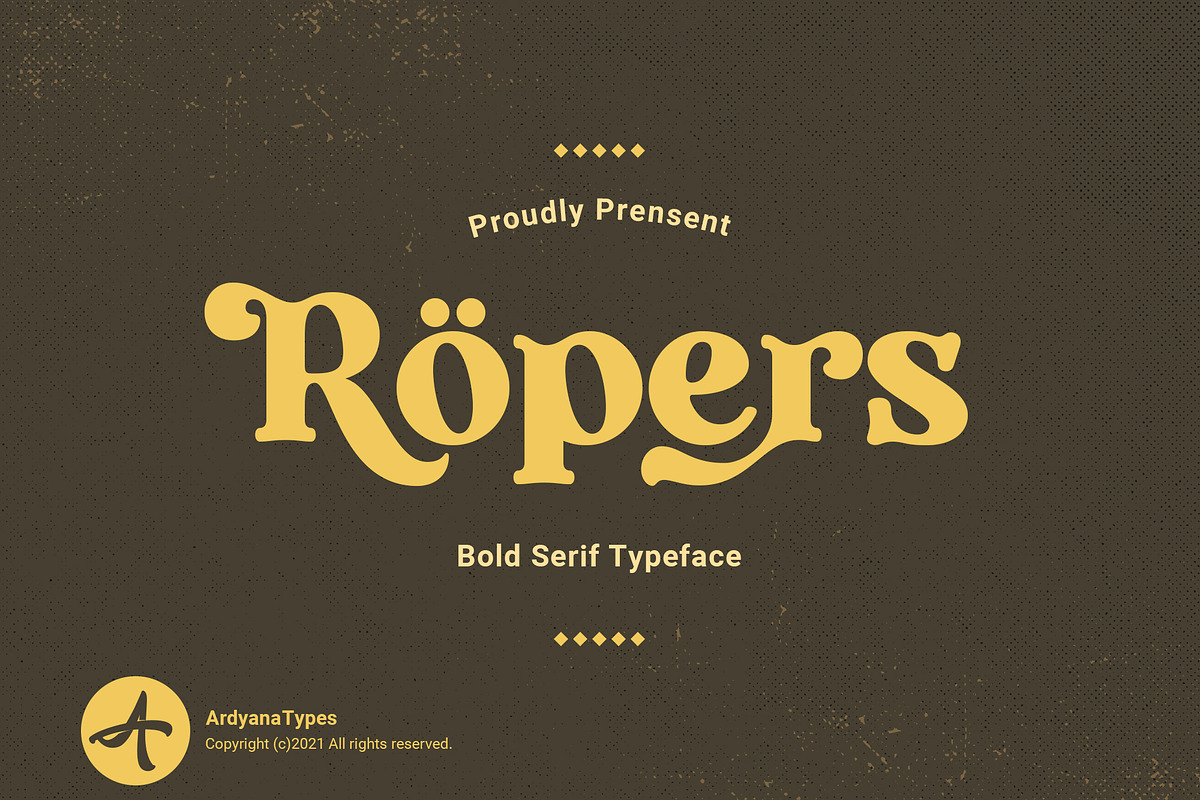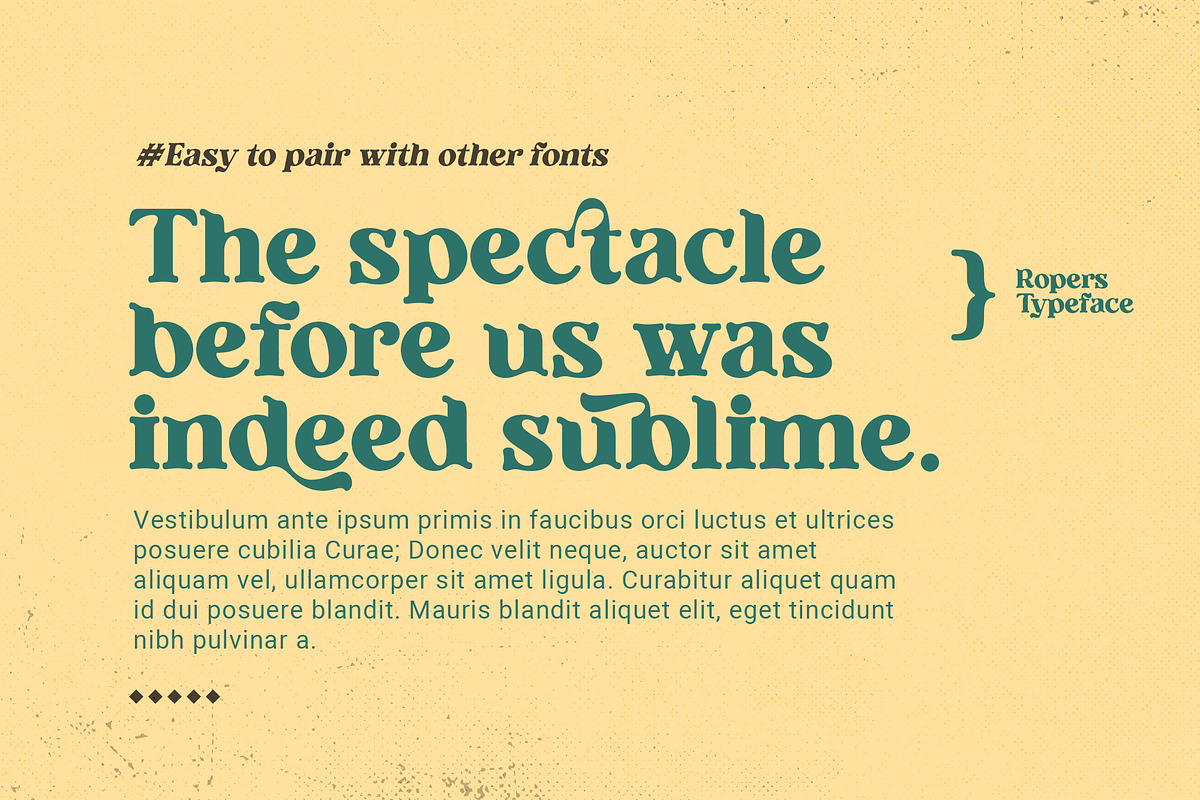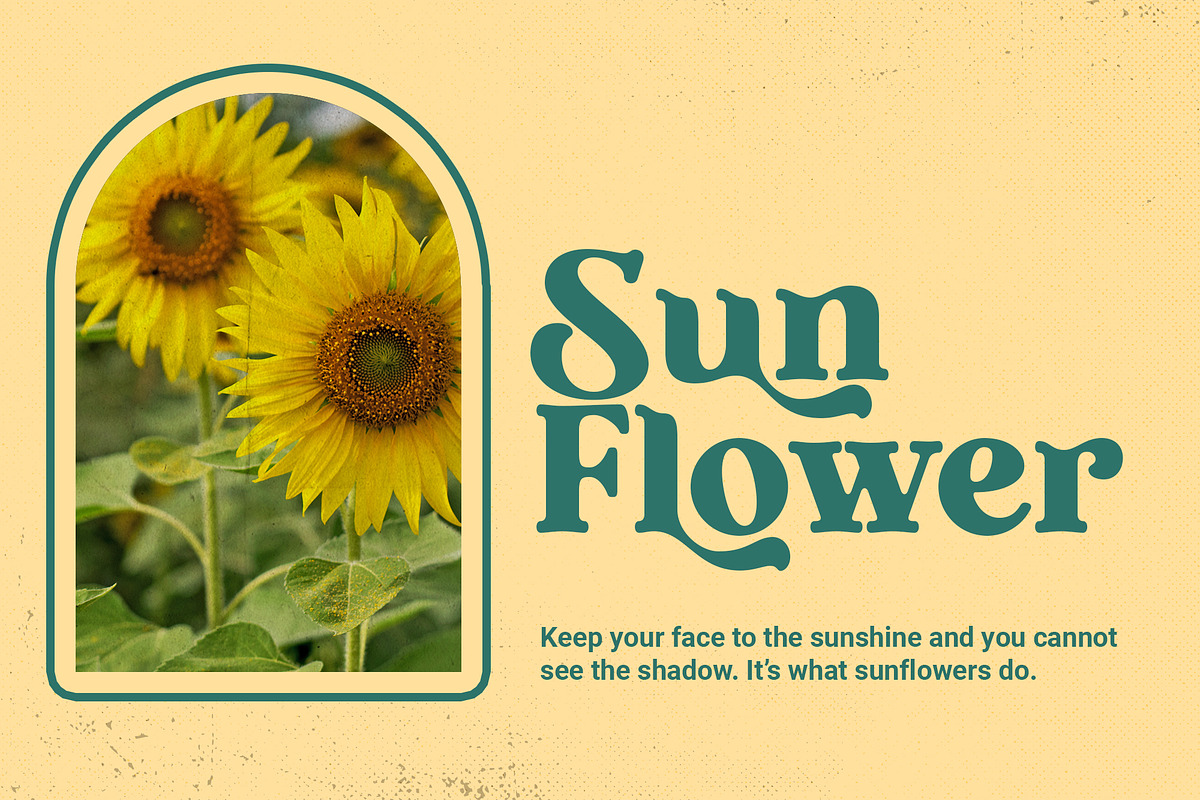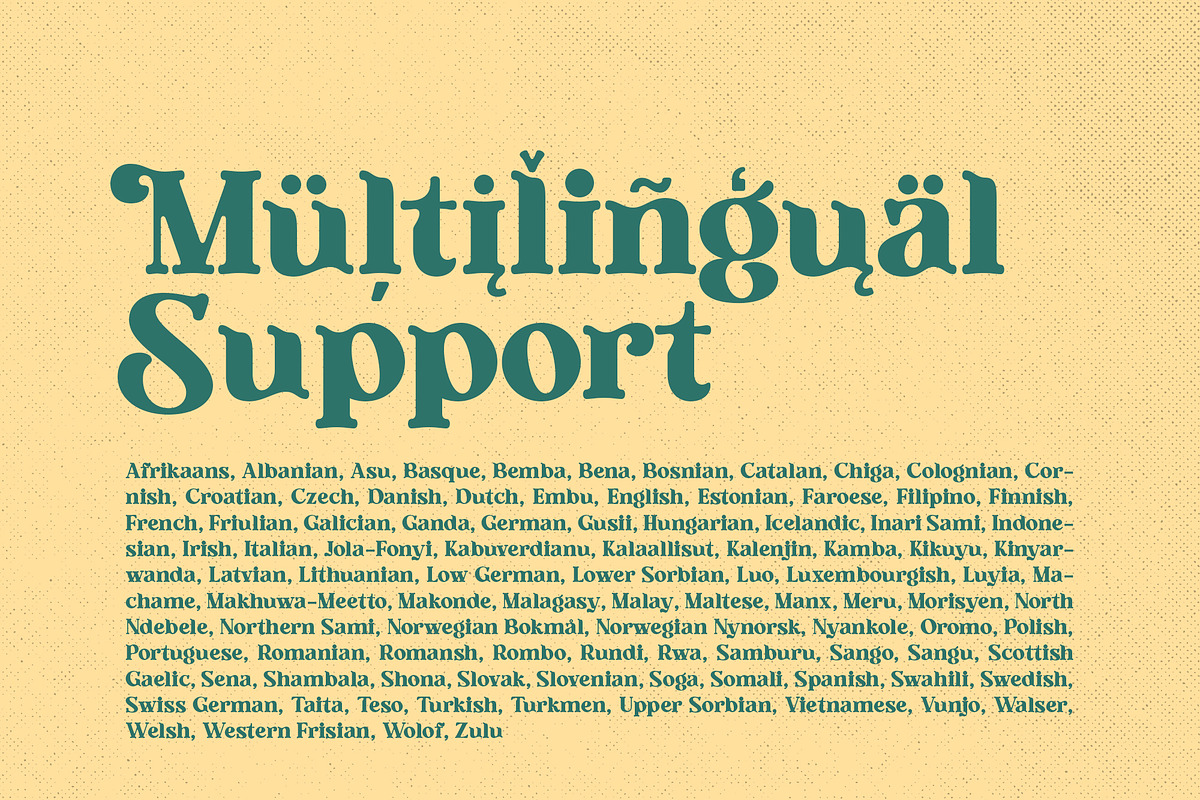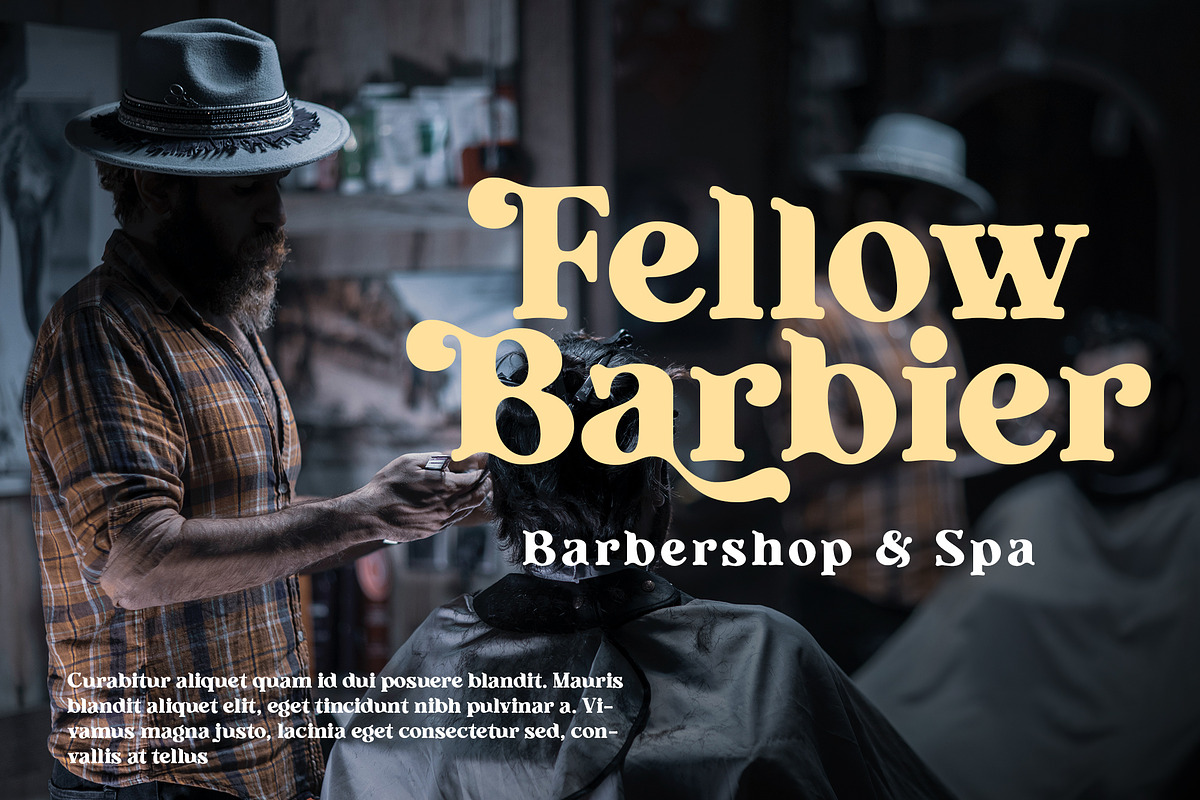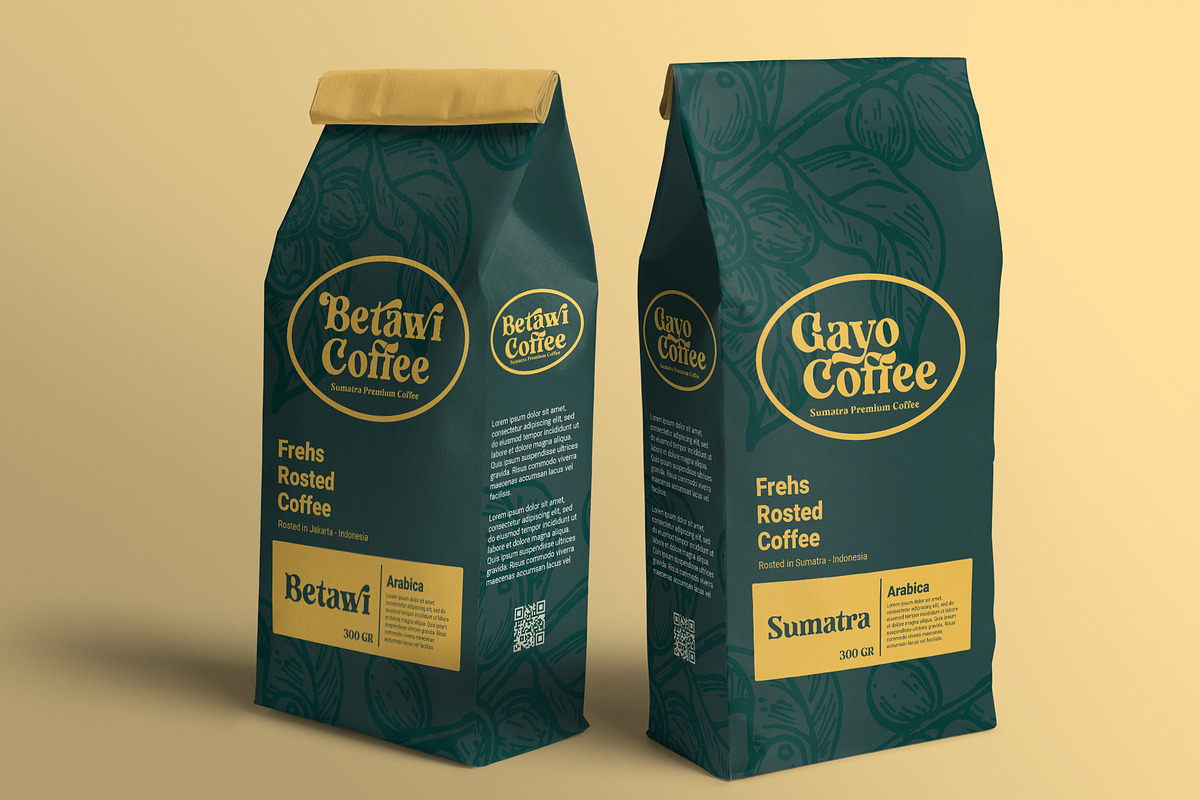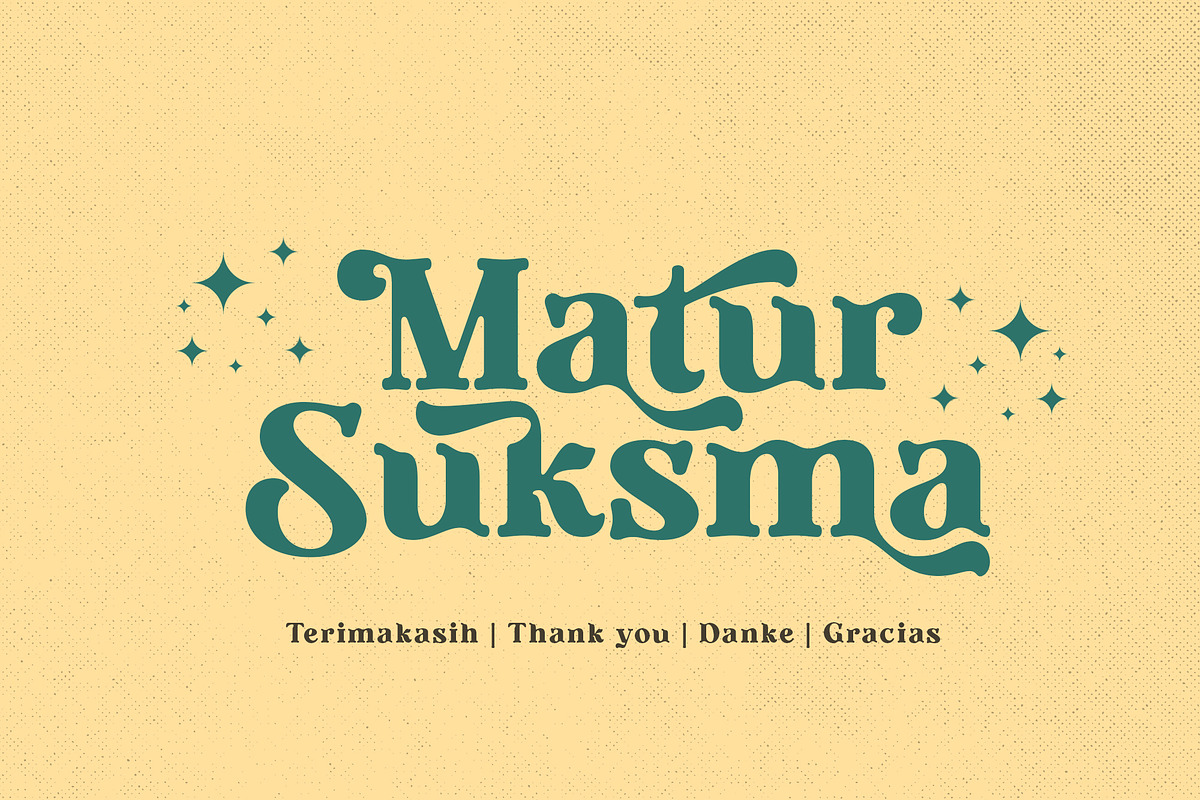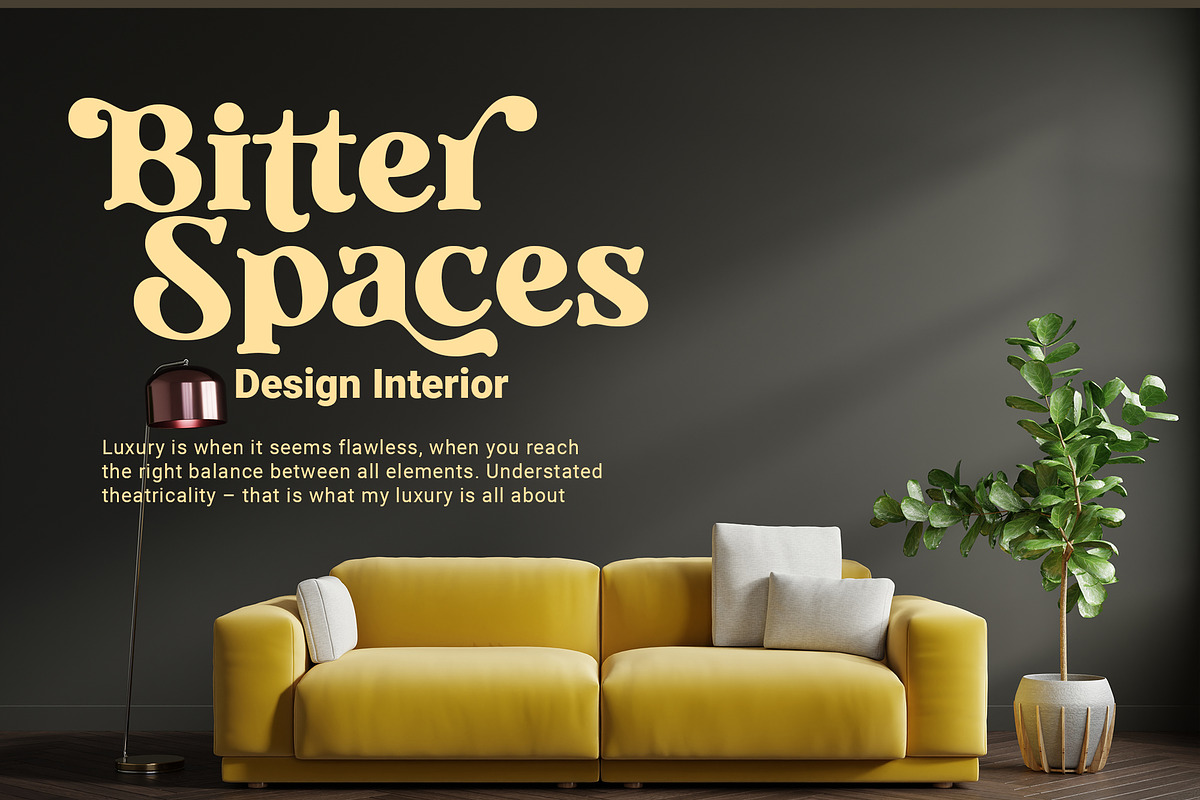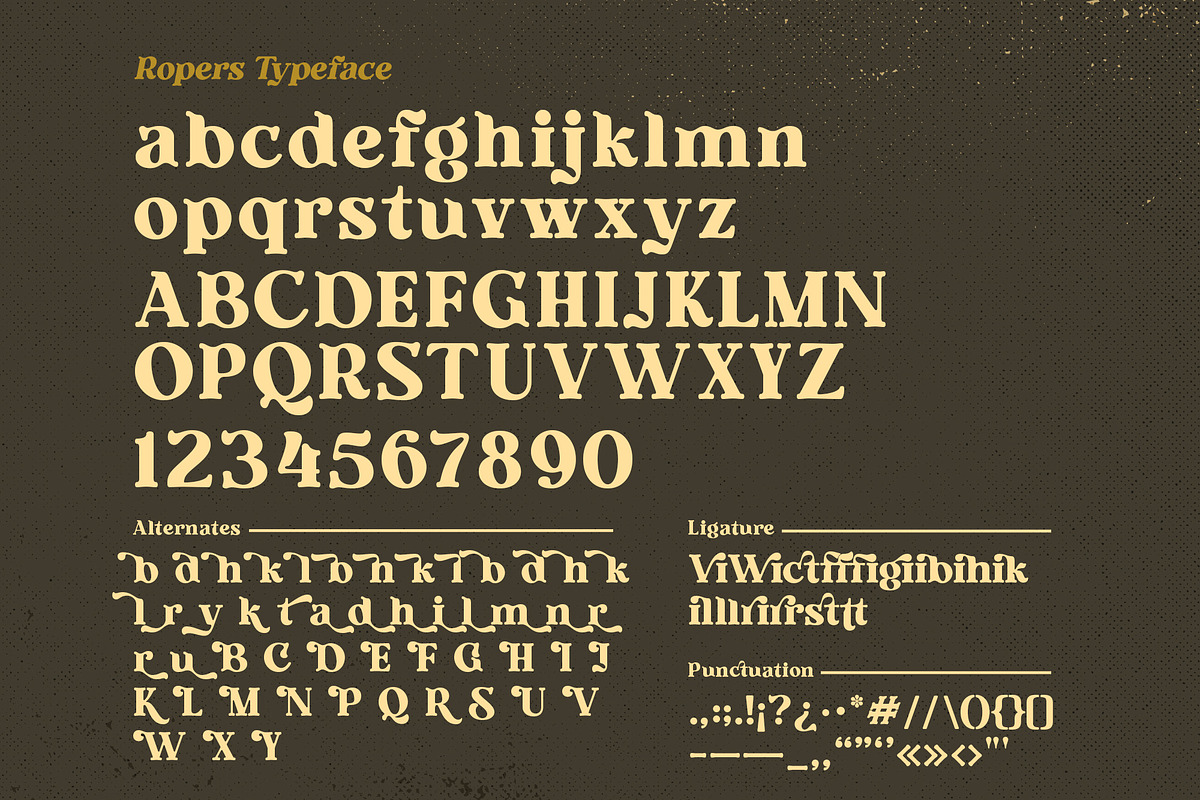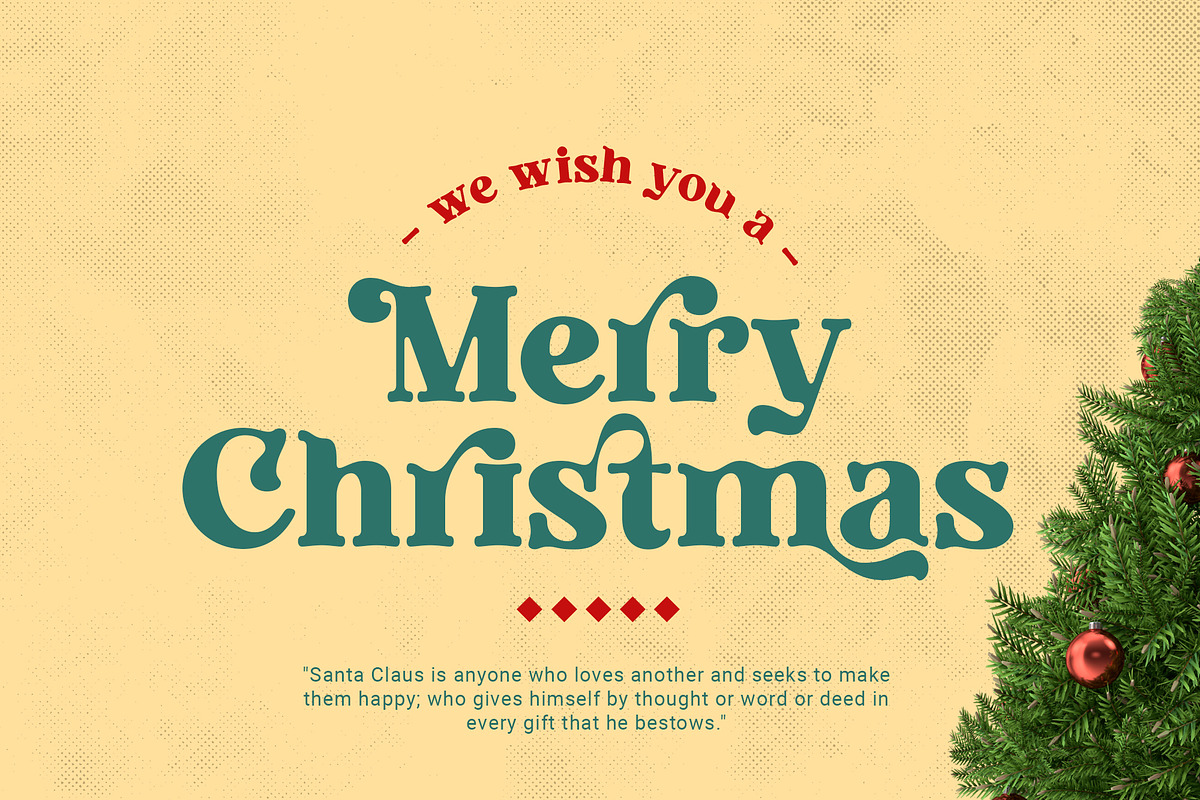
Ropers - Bold Serif Typeface
Feel how the tones mesmerize you - say HELLO to "Ropers" - a Bold Serif Typeface with agile and alive ligatures and alternates. Designed to use in mid-tones harmonic, the stark contrast of the bold & wondrous uppercase of the regular serif balances calmly to mix matches your works
More unique with the ligatures and alternates shape stream will make your typography truly eccentric Ropers are easy to pair with other fonts and no special software is required to type out the standard characters of the Typeface. To access the Opentype Ligatures and Alternates you will need software that supports Opentype features in fonts.
super match with various types of works such as promotional themes, greetings, products cover, brands logo, and much more. No need to worry, Ropers are also available in multi-language usage, which makes your work easier.
- A – Z Character Set
- a – z Characters set